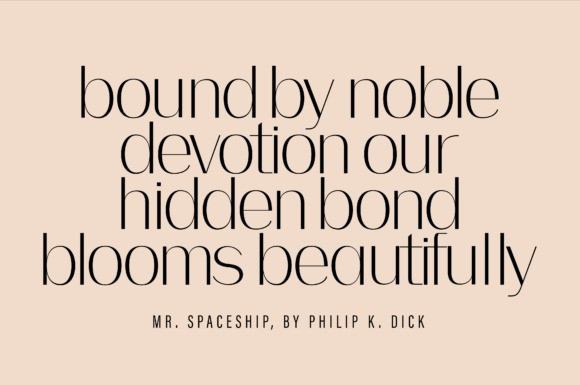
Bodon Font
Bodon Font is a delicate, high-contrast sans serif font designed for timeless elegance and exceptional readability. With its sleek minimal curves and refined thin-to-thick transitions, Bodon brings a sophisticated and modern luxury feel to any design. Perfect for upscale branding, beauty products, packaging, editorial layouts, wedding stationery, fashion lookbook,s and social media graphics, this typeface combines a clean, minimal structure with graceful elegance. Its balanced proportions make it highly readable at both large and small sizes. Available in both Regular and Italic styles and delivered in OTF, TT,F and WOFF formats, Bodon is the ideal choice for designers looking to elevate their visual identity with a stylish and premium sans serif.